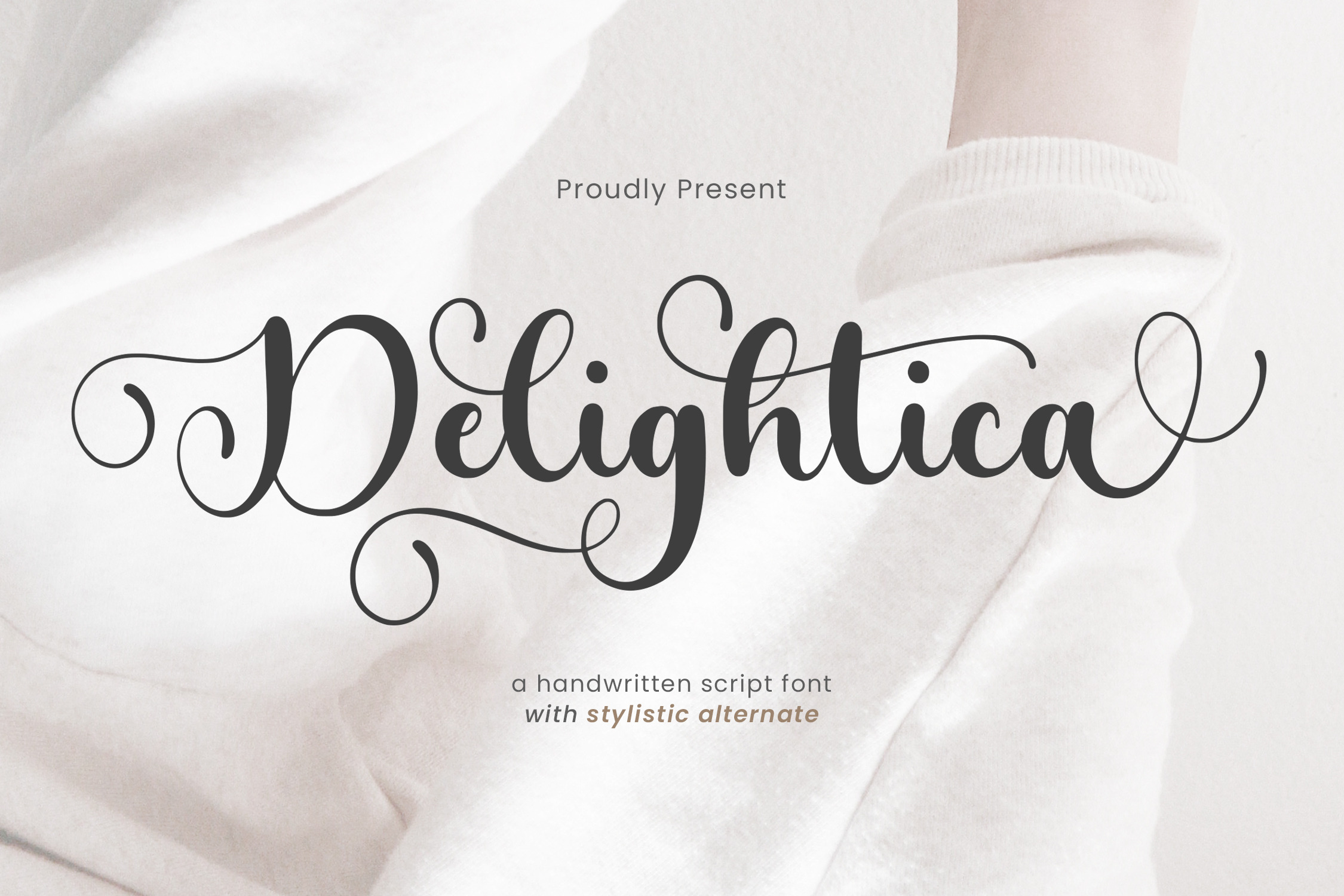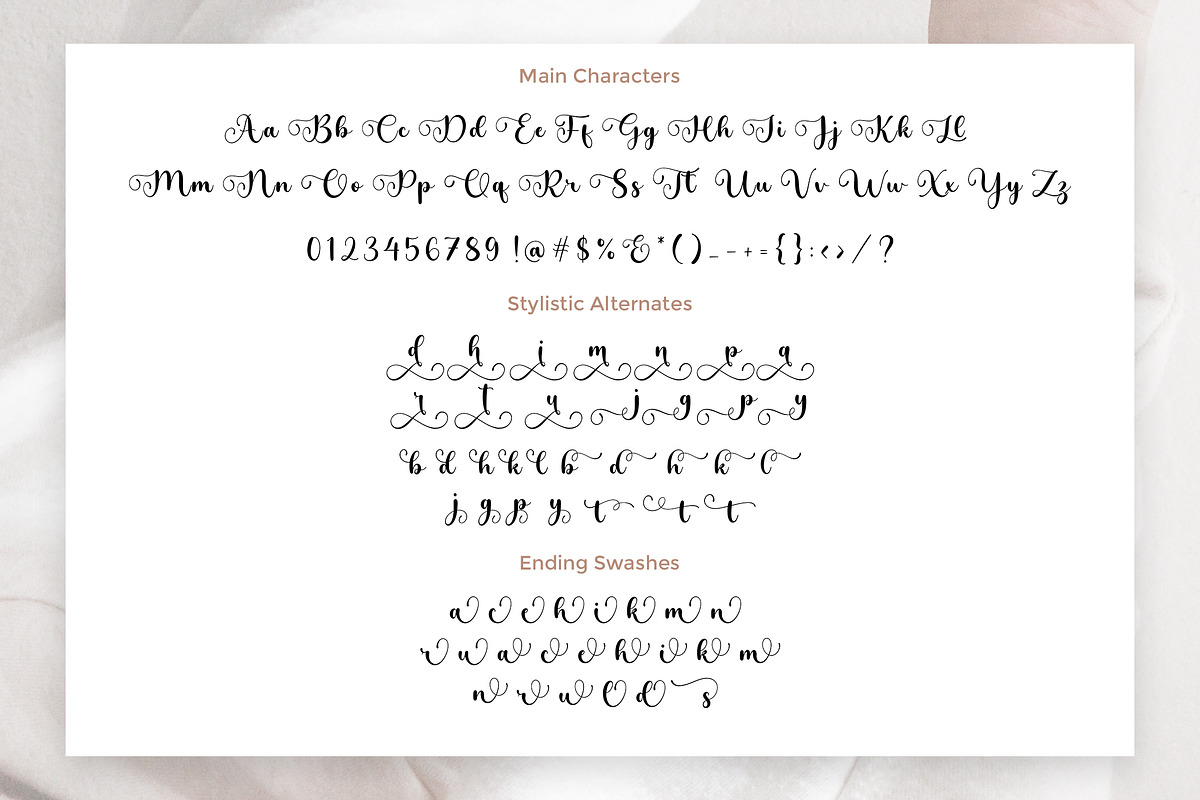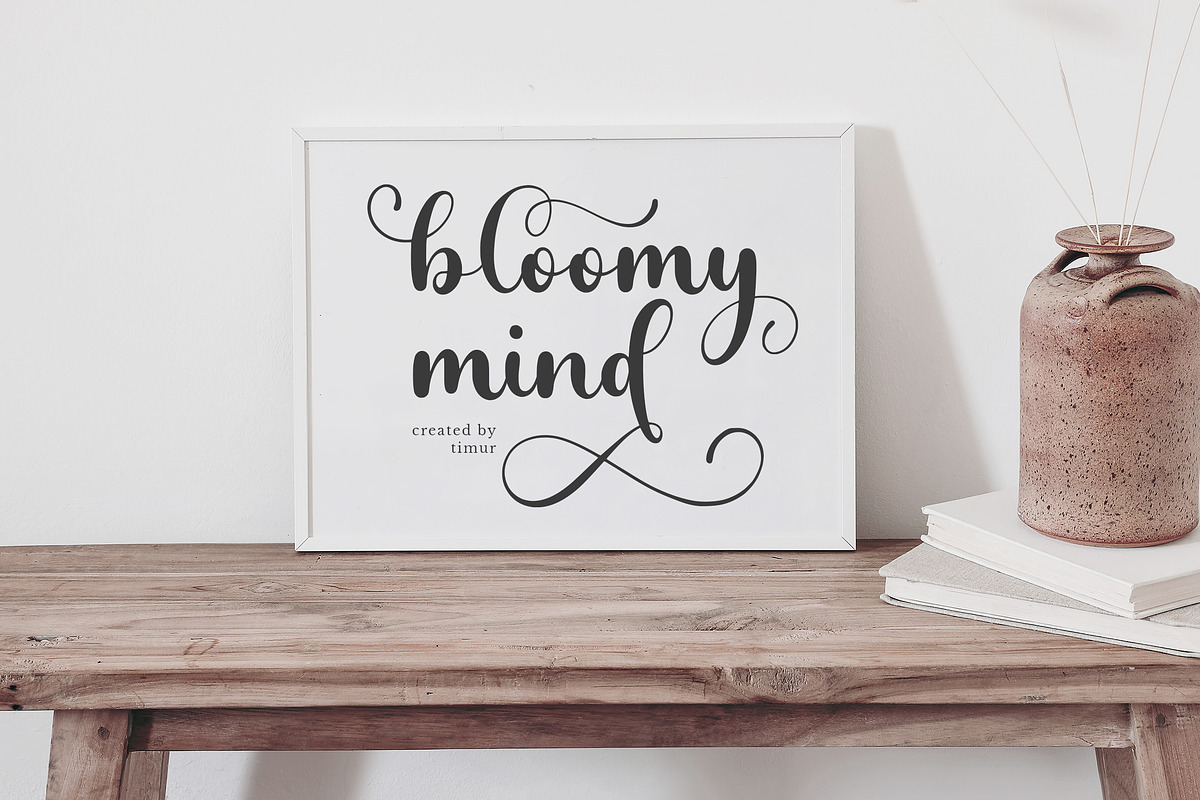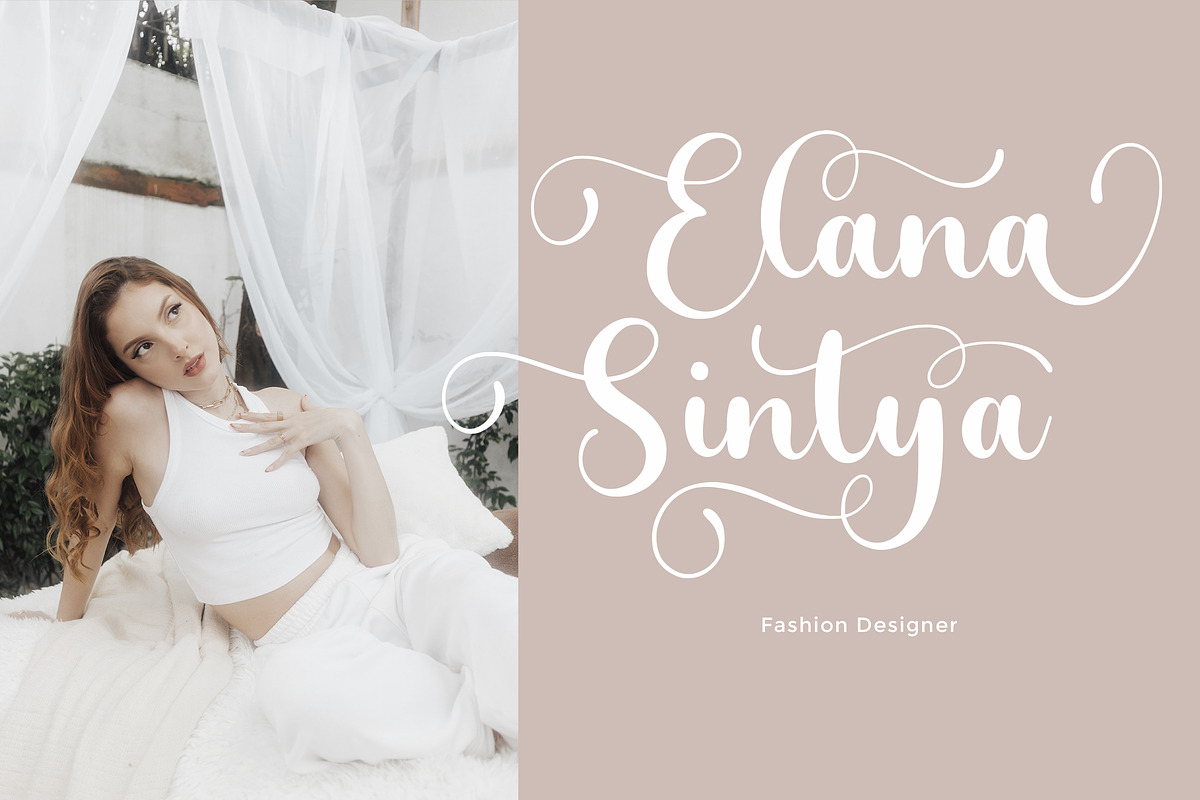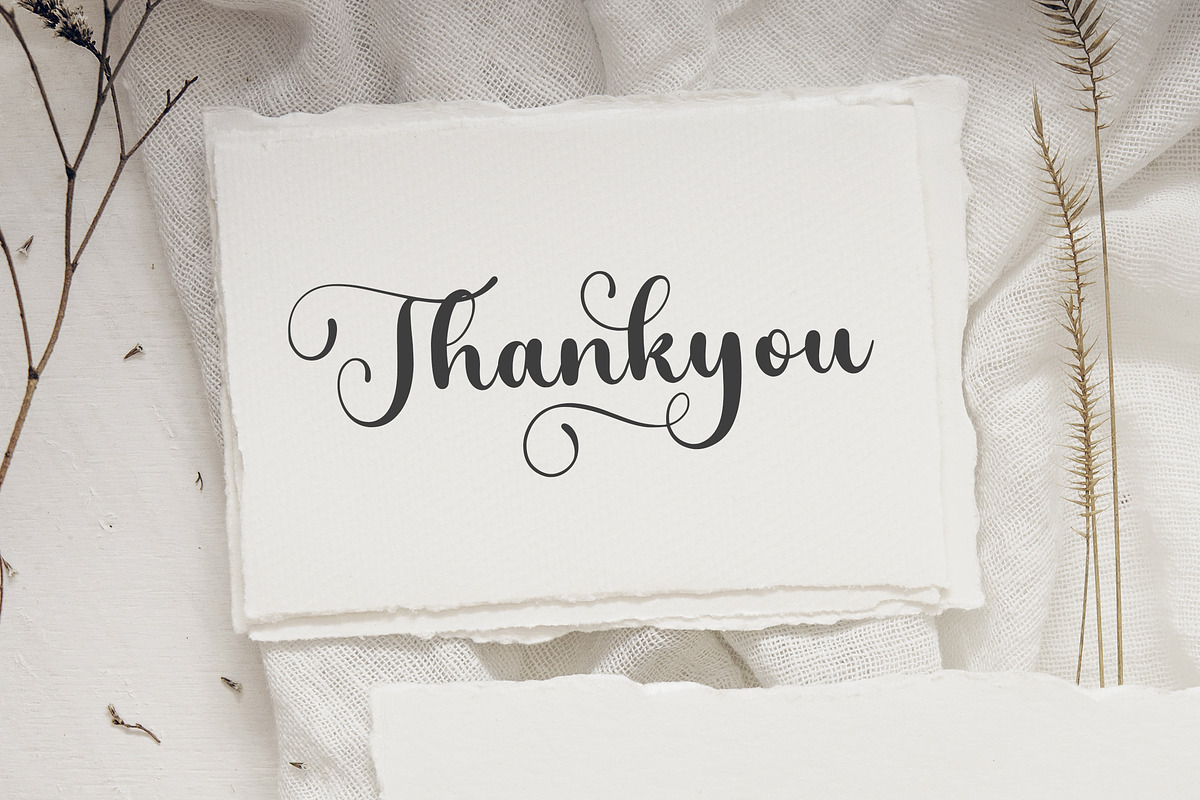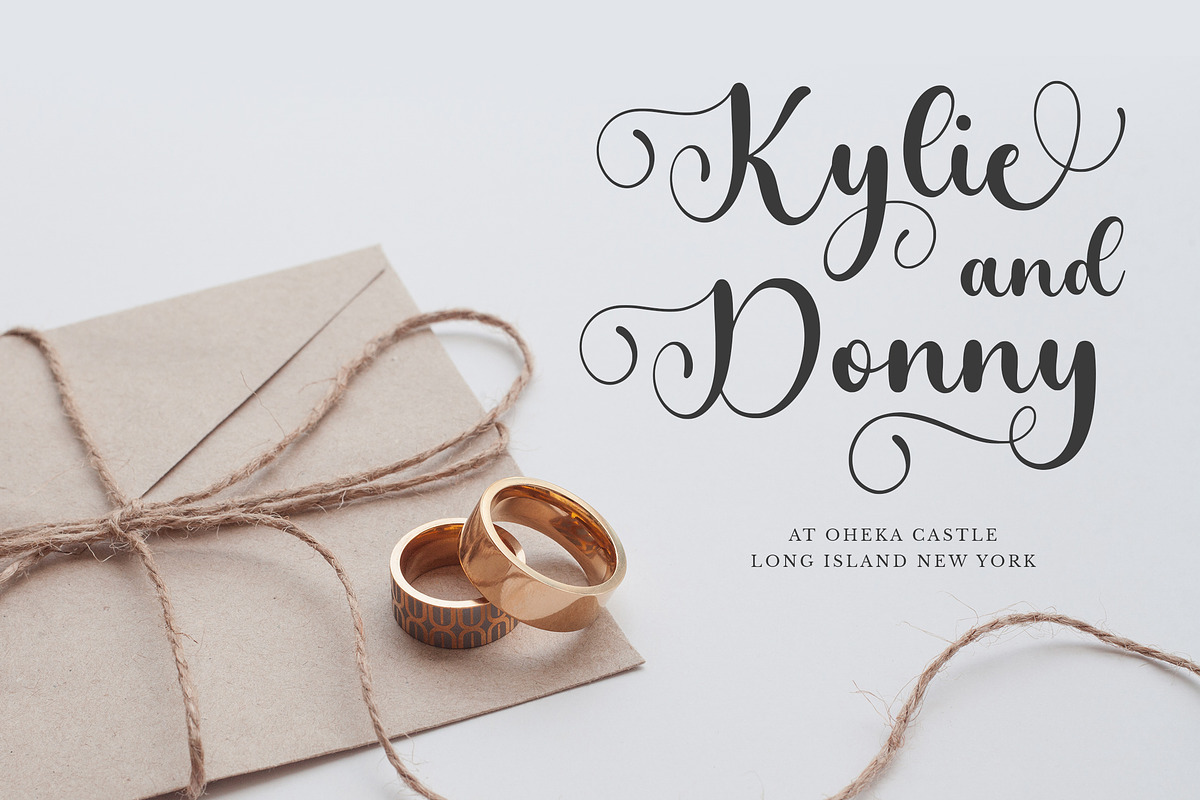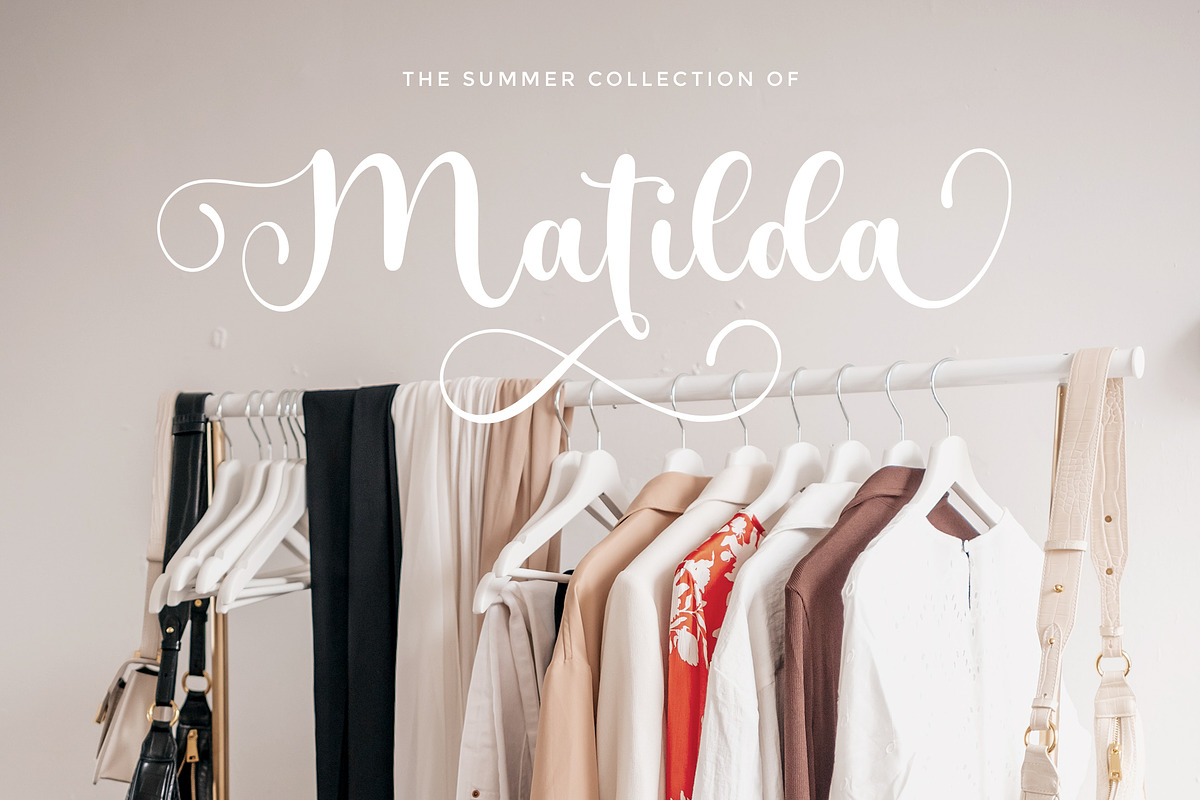
Delightica - Handwritten Script Font
Introduced by Timur type
Proudly Present Delightica
Delightica is a Modern script font that is modern and fresh, and will bring a warm and inviting feel to your business. Take advantage of the fonts and experience the magic for yourself. Delightica font is perfect for product packaging, branding project, megazine, social media, wedding, or just used to express words above the background.
Delightica font Features premium : -Full Set of standard alphabet and punctuation